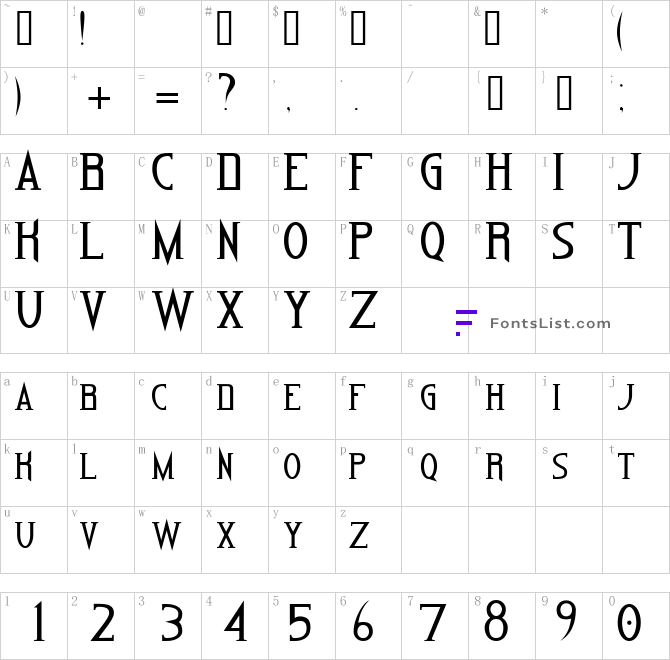
- Font Name:Capitel Gothick
Capitel-Gothick-Regular.ttf is a very beautiful artistic font, Capitel-Gothick-Regular.ttf is widely used in the design and printing of various books and pictures,Capitel-Gothick-Regular.ttf has a strong visual impact,Capitel-Gothick-Regular.ttf is a commonly used font in newspapers, magazines and books, and is used in posters, e-commerce Poster design, store design, logo design, font design and other fields.Capitel-Gothick-Regular.